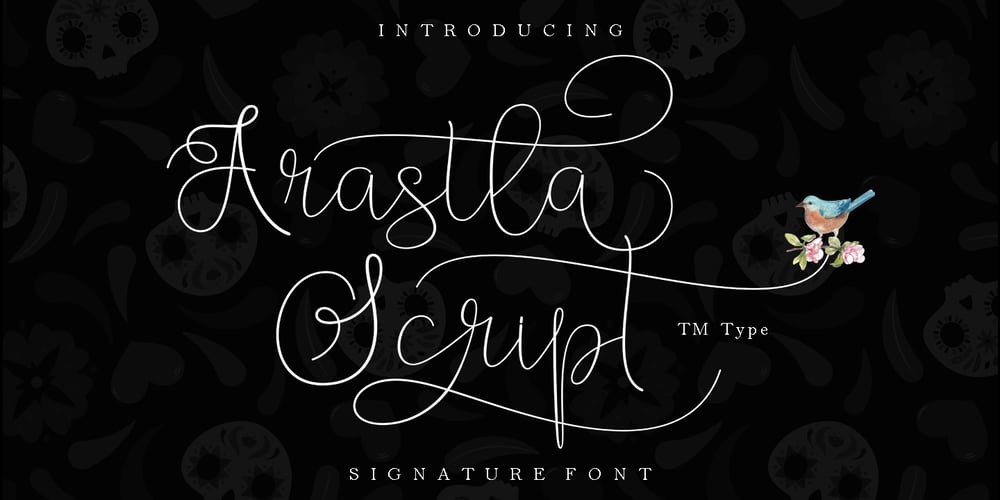
Arastla Script Font Family was designed by Teuku Bustami and published by TM Type. Arastla Script contains 1 styles and family package options. Arastla Script is a stylish and unique signature font that is easy to remember. It’s great for unique branding, photo overlays, watermarks, business cards, invitations, and much more.